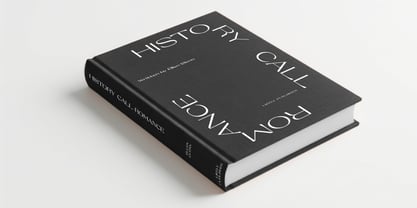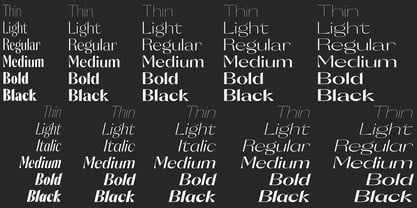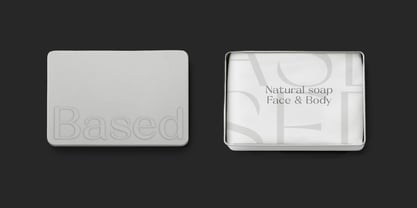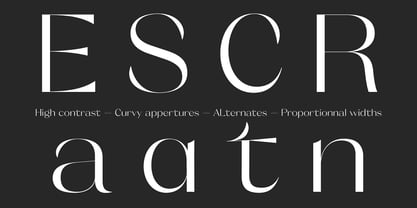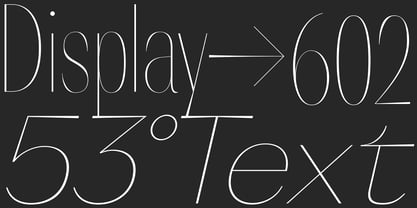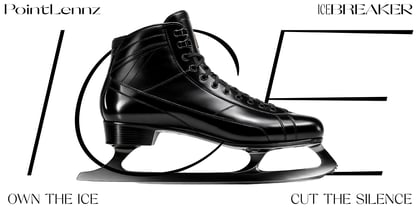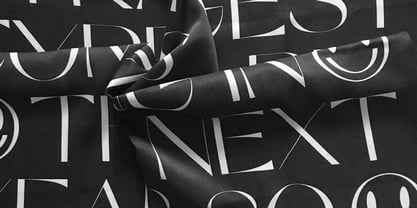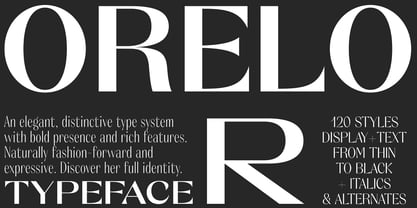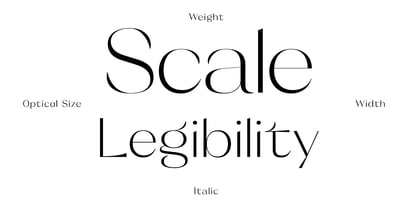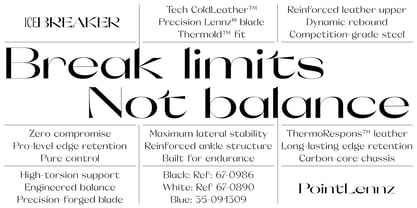
Orelo
La famille de polices Orelo a été conçue par Adrien Midzic et publiée par Pizzatypefaces. Orelo contient 121 styles et options de package familial. En savoir plus sur cette famille
Orelo is a high-contrast typeface that channels the dramatic elegance of Bodoni-era refinement while deliberately removing the serif. Bodoniesque in spirit yet radically sans, it distills the tension between thick and thin into a sharp, contemporary statement. The result is a silhouette-driven design where vertical stress, razor-thin hairlines, and sculpted curves create a striking visual cadence. Designed as a fashion-forward display voice, Orelo thrives on contrast – not only in weight, but in attitude. Its tall proportions and refined terminals evoke couture precision, while its clean, serifless construction keeps it modern and editorially sharp. The extreme modulation amplifies light and shadow within each letterform, giving compositions a sense of movement and spotlight drama. Despite its intensity, Orelo maintains control. Counters are carefully balanced to preserve legibility, and spacing is tuned to allow the high contrast to breathe. The tension between fragility and structure is intentional: delicate hairlines meet confident stems, producing a typographic rhythm that feels both luxurious and daring. Perfectly suited for fashion branding, magazine mastheads, luxury packaging, art direction, beauty campaigns, and high-end digital experiences, Orelo commands attention without excess. In large sizes, it becomes sculptural and iconic; in refined layouts, it delivers elegance with a sharp editorial edge. Its tone is unapologetically sophisticated – bold yet poised, dramatic yet restrained. Orelo is not neutral; it is presence. A couture-inspired sans serif built for brands that value distinction, refinement, and high-impact visual identity.